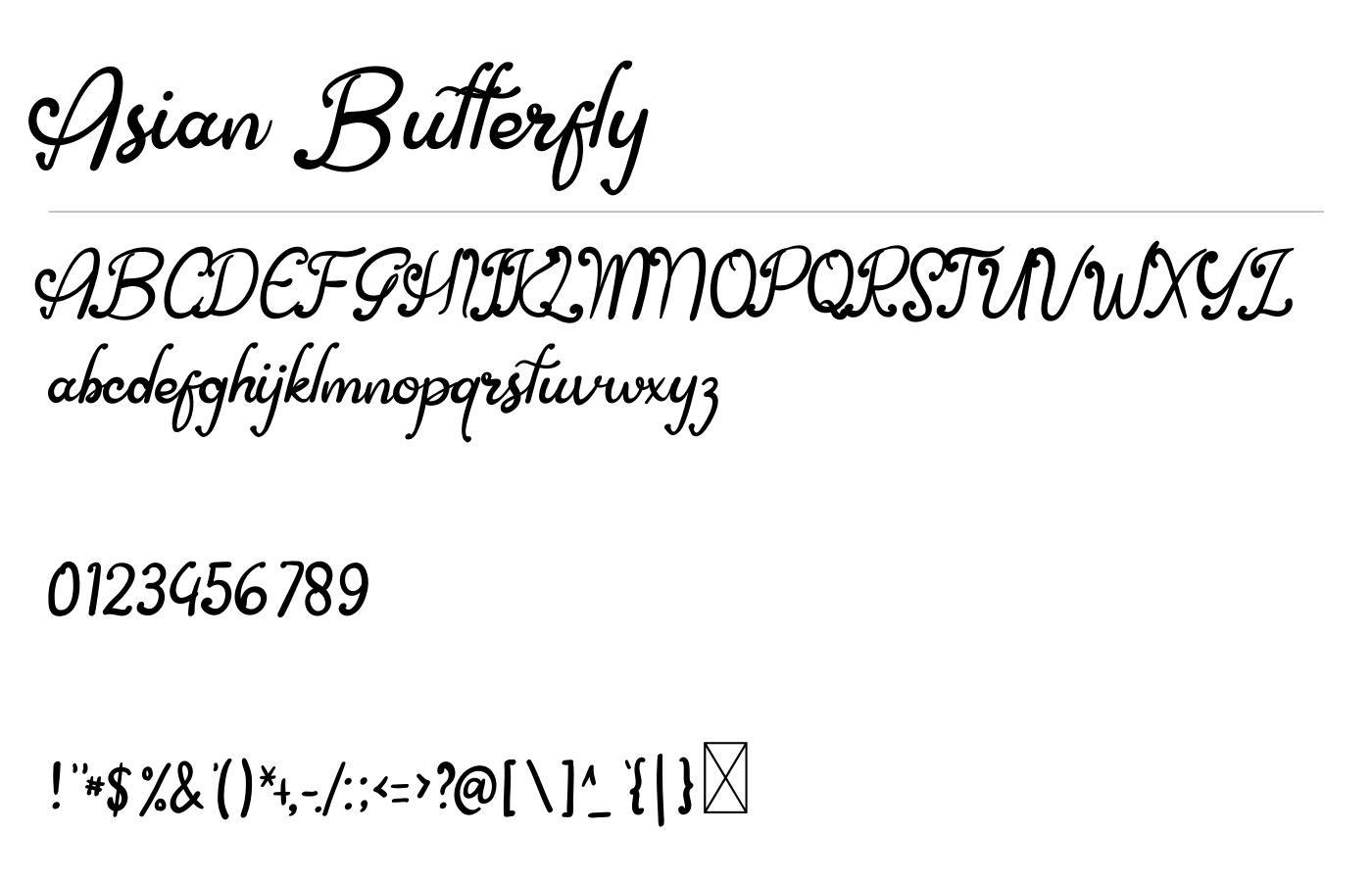
Asian Butterfly is a graceful script font featuring smooth, flowing strokes with moderate contrast and a delicate, calligraphic style. Its elegant, slightly condensed letterforms bring a natural, handwritten charm perfect for invitations, branding, and decorative headings that seek to convey sophistication and warmth. This font excels in projects where a refined yet approachable aesthetic is desired.
Asian Butterfly Font
About Asian Butterfly Font